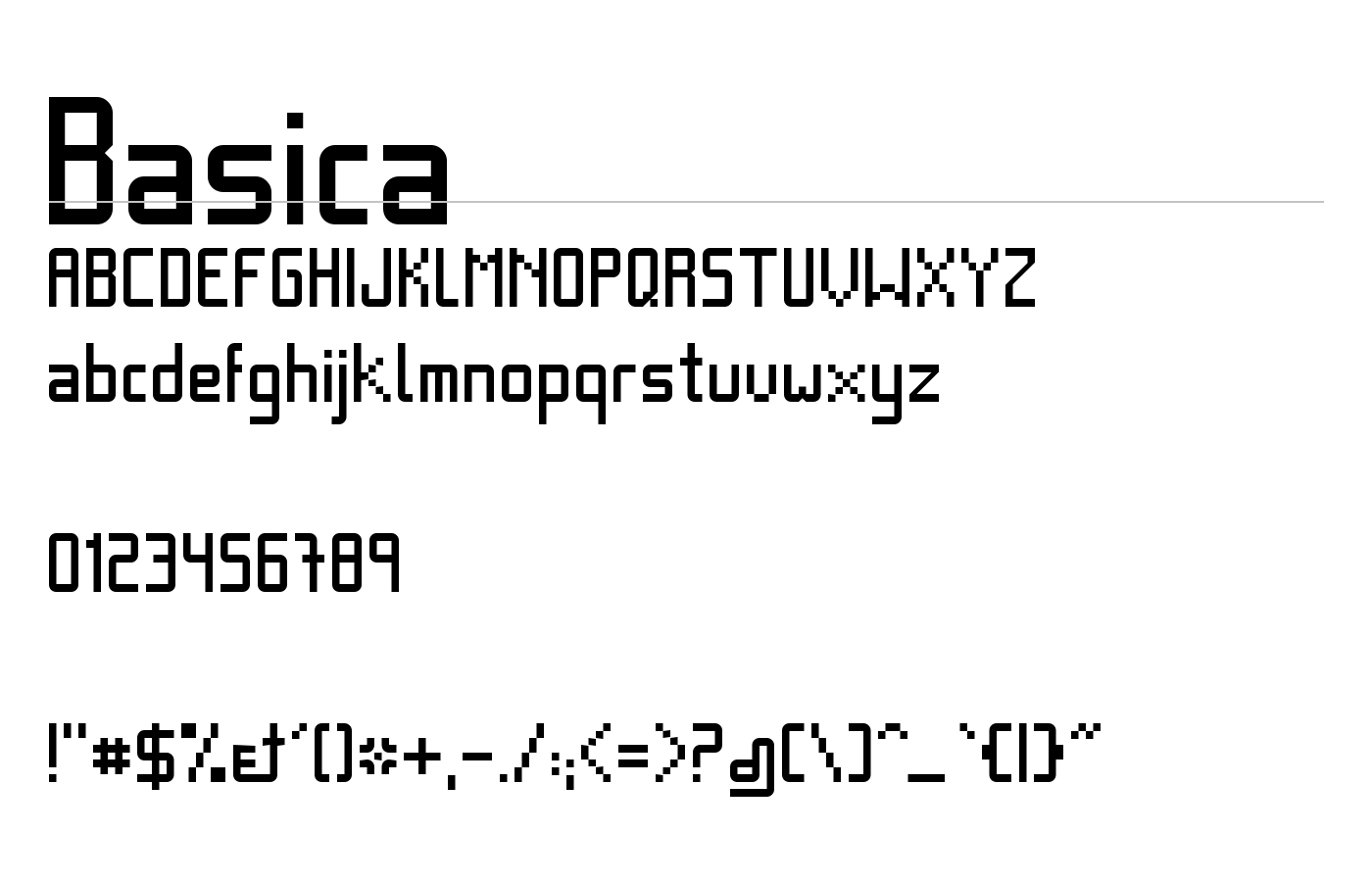
Basica is a modern, monospaced sans serif font with a digital, pixelated style that brings a tech-savvy, futuristic vibe. Its consistent stroke weight, tall x-height, and clean, geometric shapes make it highly readable, making it ideal for coding, digital interfaces, and tech branding. This font works best in contexts where clarity and a modern digital feel are important, such as websites, software interfaces, and tech-related headlines.
Basica Font
About Basica Font